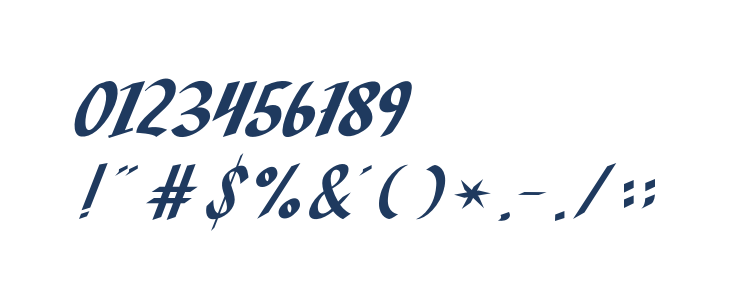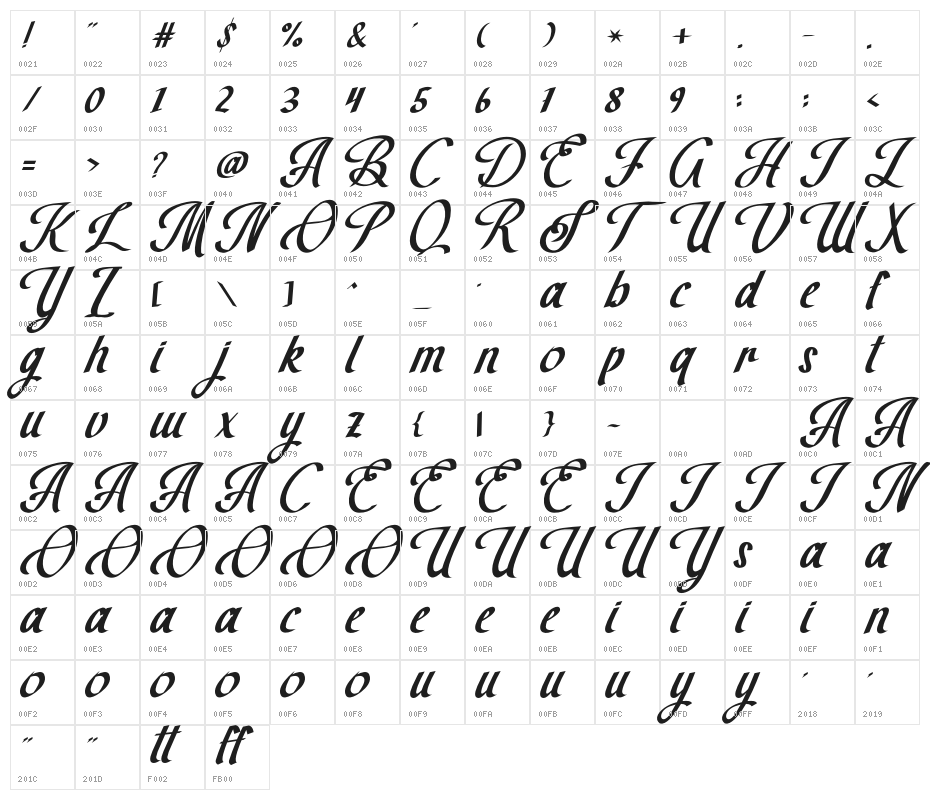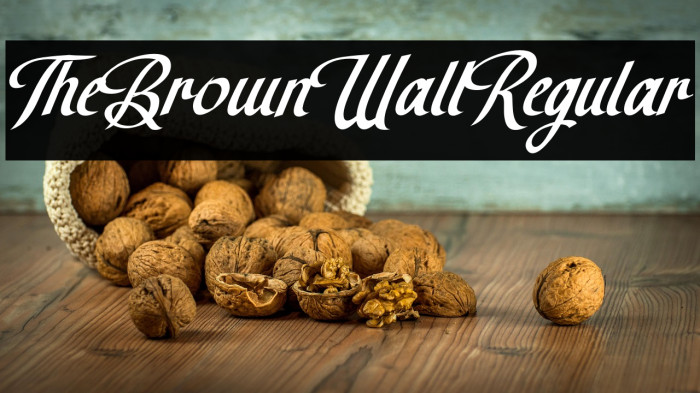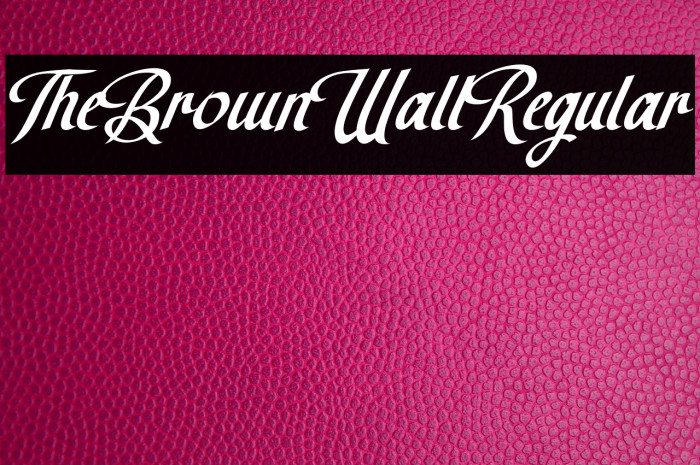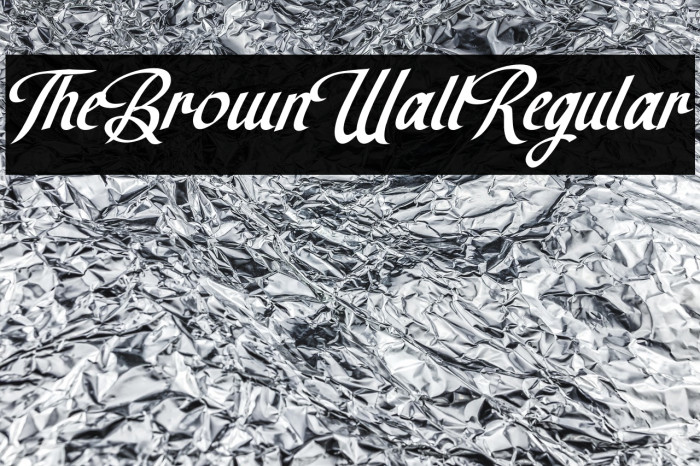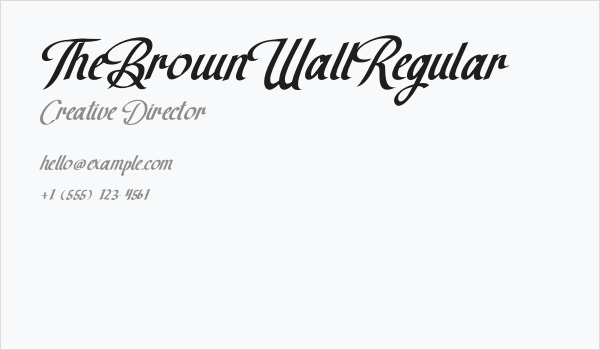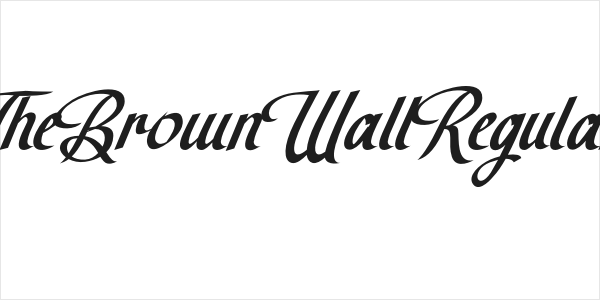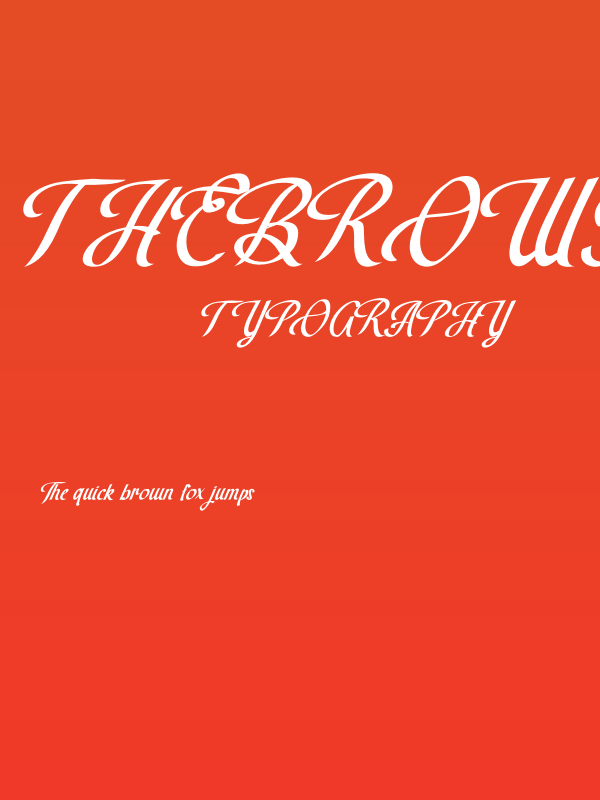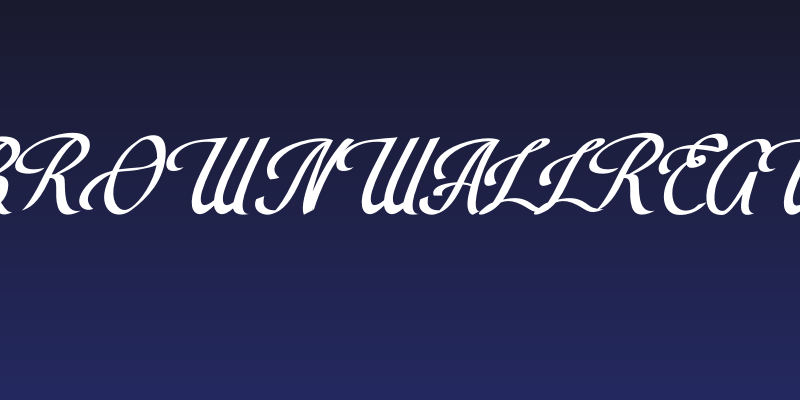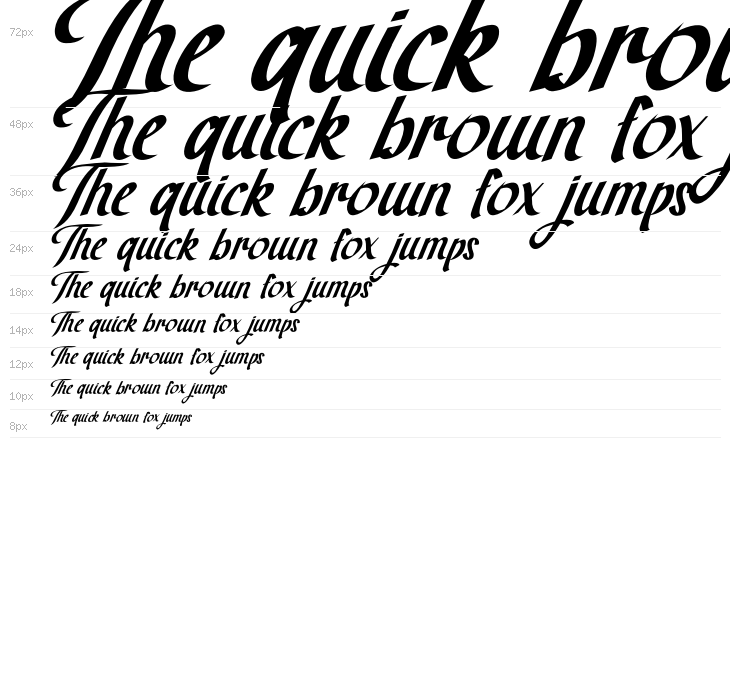
TheBrownWallRegular Font
TheBrownWallRegular Description
This font is a bold and expressive script style that exudes elegance and sophistication. The uppercase letters are characterized by their flowing, cursive forms with intricate loops and flourishes, giving them a sense of movement and grace. The lowercase letters maintain a consistent style, with smooth, connected strokes that enhance readability while retaining an artistic flair. The numerals are bold and slightly slanted, matching the overall dynamic feel of the font. Special characters are designed with the same attention to detail, ensuring they blend seamlessly with the rest of the typeface. This font is perfect for projects that require a touch of luxury and refinement.
| Overall Style | Elegant, Decorative |